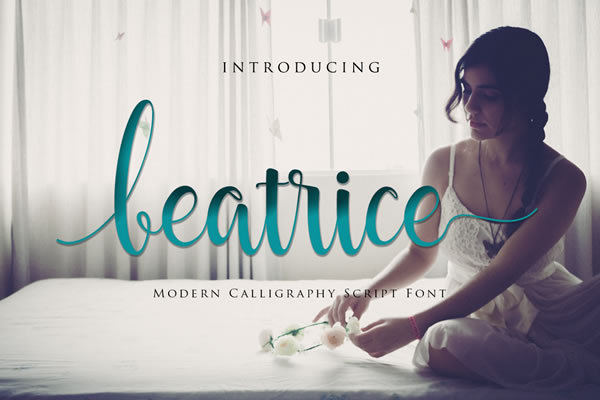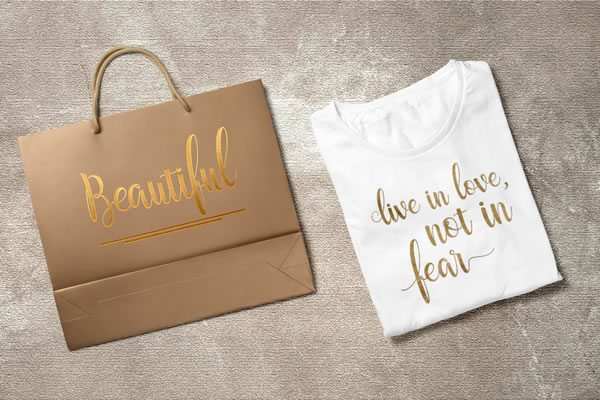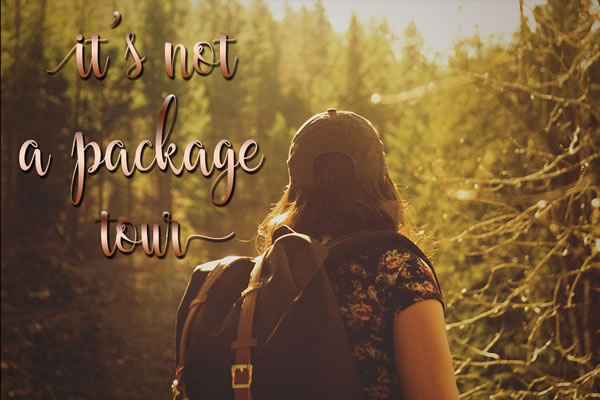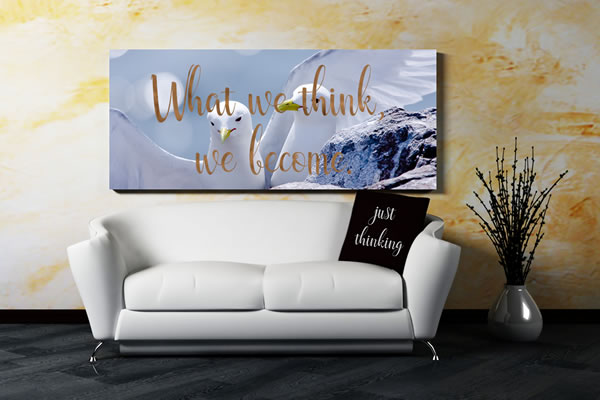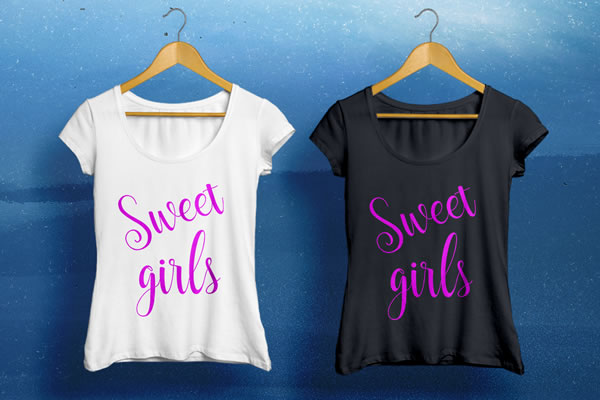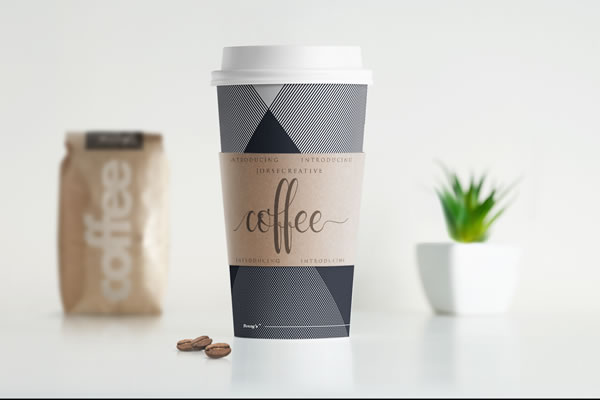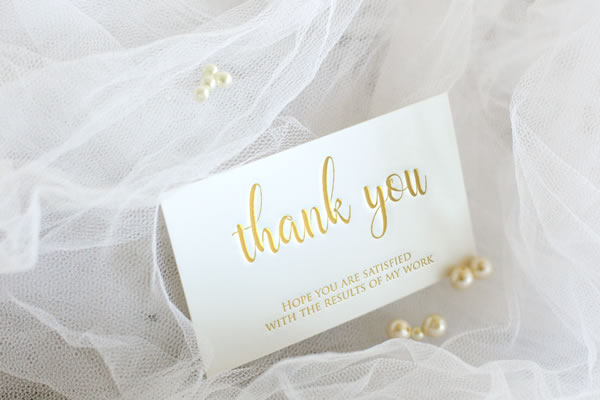
Beatrice Font
About Beatrice Font
Beatrice is a handwritten font that features a dancing baseline. This gives your text a smooth flow and gives your designs a warm personal feeling.
The Beatrice font features:
Contextual Alternates
Standard ligatures
Stylistic Alternates
Stylistic sets